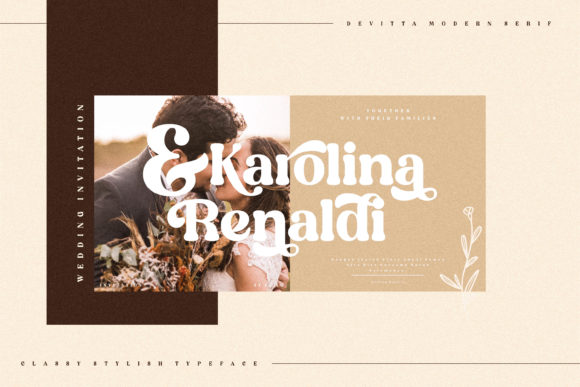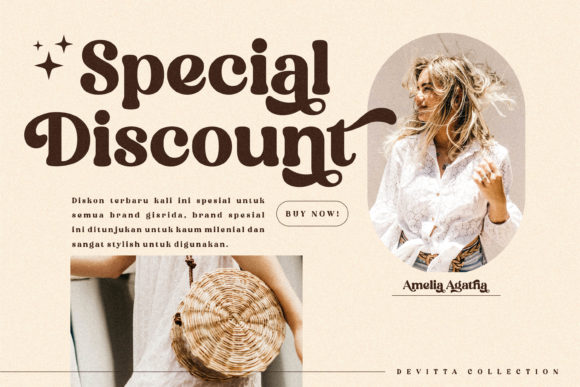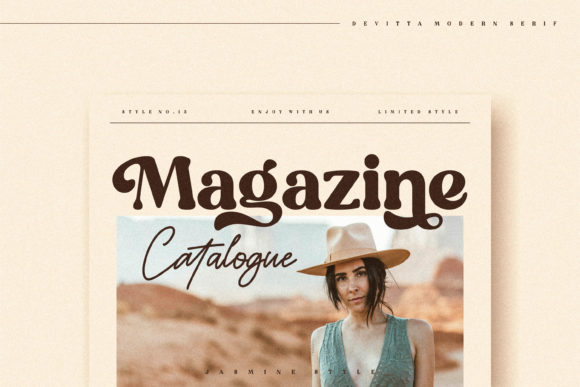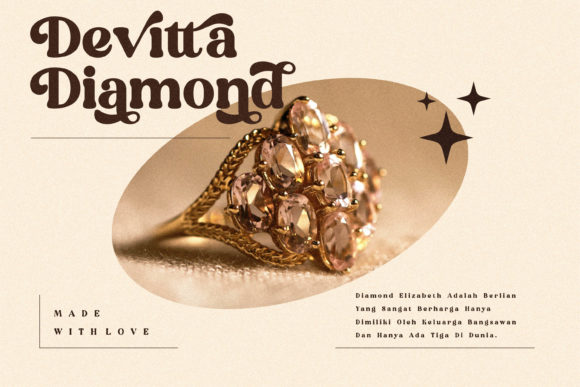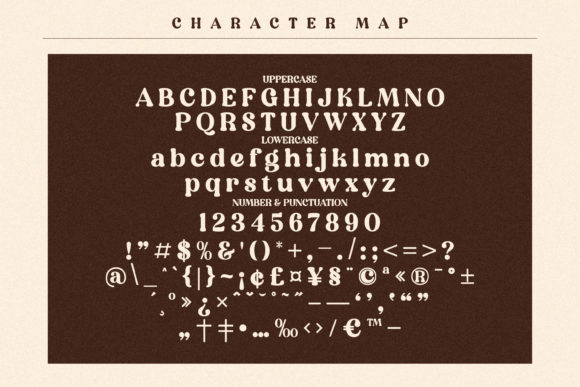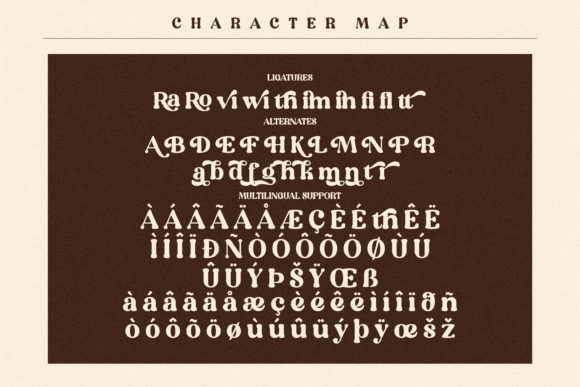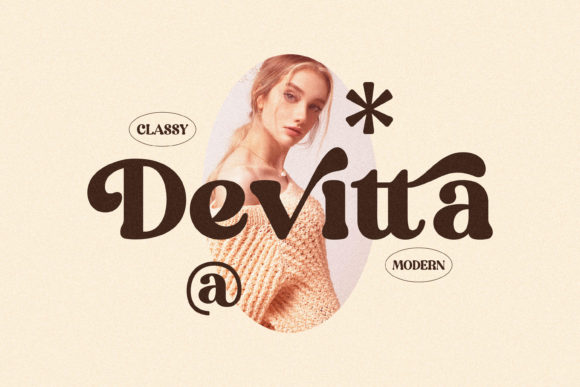
Introducing Devitta Font: Elevate Your Designs with Elegance and Sophistication
In the world of typography, fonts play a crucial role in conveying the message and aesthetic of a design. For designers and crafters looking to add a touch of class and modernity to their projects, Devitta Font is an exceptional choice. This beautifully crafted serif font is not only visually stunning but also highly functional, making it perfect for a wide range of applications.
What Makes Devitta Font Stand Out?
Devitta Font is a classy and modern serif font that has been meticulously designed to offer a unique blend of elegance and sophistication. Its neat and highly detailed structure ensures that it stands out in any design, providing a professional look that is hard to achieve with standard fonts.
One of the key features that set Devitta Font apart is its PUA (Private Use Area) encoding. This means that users can easily access all glyphs and swashes, allowing for greater flexibility and creativity in design. Whether you’re working on a branding project, a website, or a print material, Devitta Font offers the versatility you need to create something truly special.
The Benefits of Using Devitta Font
For designers and crafters, finding the right font can be a game-changer. Here are some benefits of incorporating Devitta Font into your projects:
- Elegance and Sophistication: Devitta Font adds a touch of class to any design, making it perfect for projects that require a professional and modern look.
- High Versatility: With its PUA encoding, Devitta Font offers access to a wide range of glyphs and swashes, allowing for endless creative possibilities.
- Attention to Detail: The font’s highly detailed structure ensures that it looks great in both digital and print formats.
- User-Friendly: Devitta Font is easy to use, even for those who are new to working with fonts. Its intuitive design makes it simple to access and apply the various glyphs and swashes.
Here are some ideas for using Devitta Font:
- Branding: Use Devitta Font to create a professional and memorable logo for your business.
- Web Design: Add a touch of elegance to your website with Devitta Font, perfect for headings and titles.
- Print Materials: Devitta Font is ideal for business cards, brochures, and other print materials where a professional look is desired.
- Packaging: Use Devitta Font to create eye-catching packaging that stands out on store shelves.
Devitta Font is a versatile and elegant serif font that can elevate any design to new heights. Its modern and classy look, combined with its highly detailed structure and PUA encoding, make it an excellent choice for designers and crafters. Whether you’re working on a branding project, website, or print material, Devitta Font offers the sophistication and flexibility you need to create something truly special.